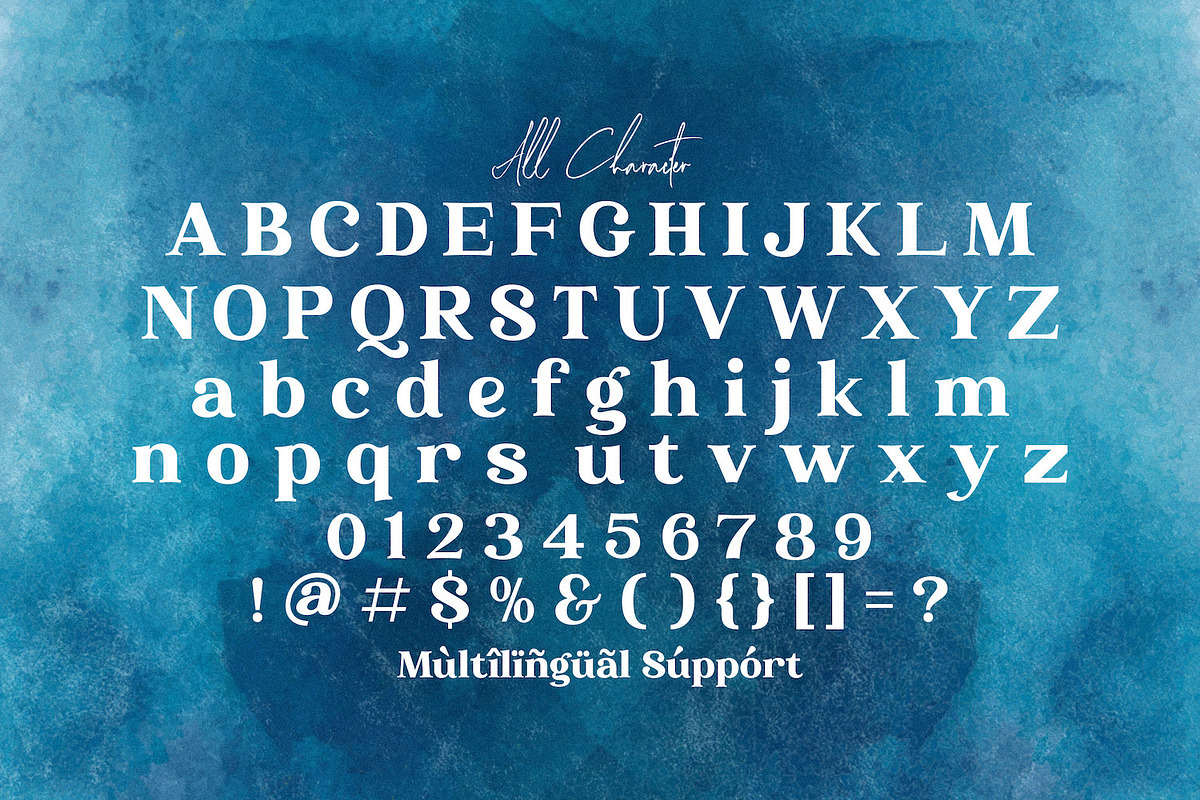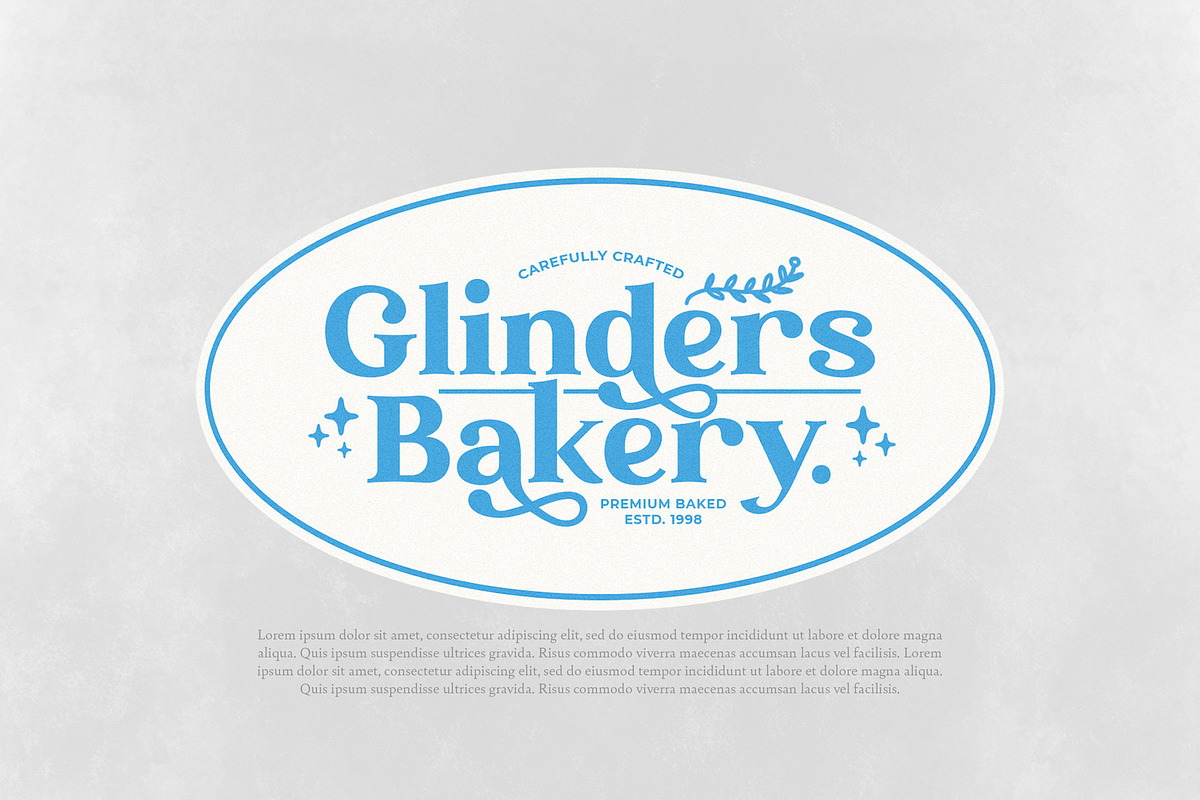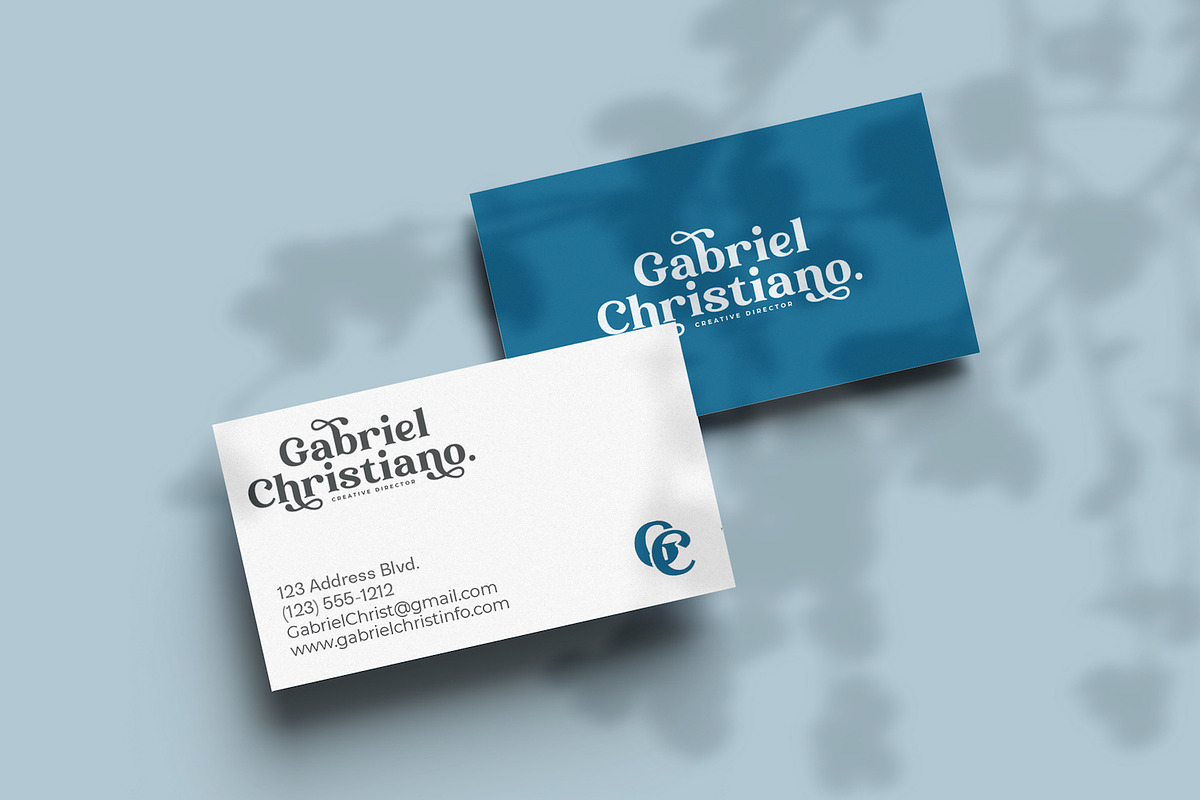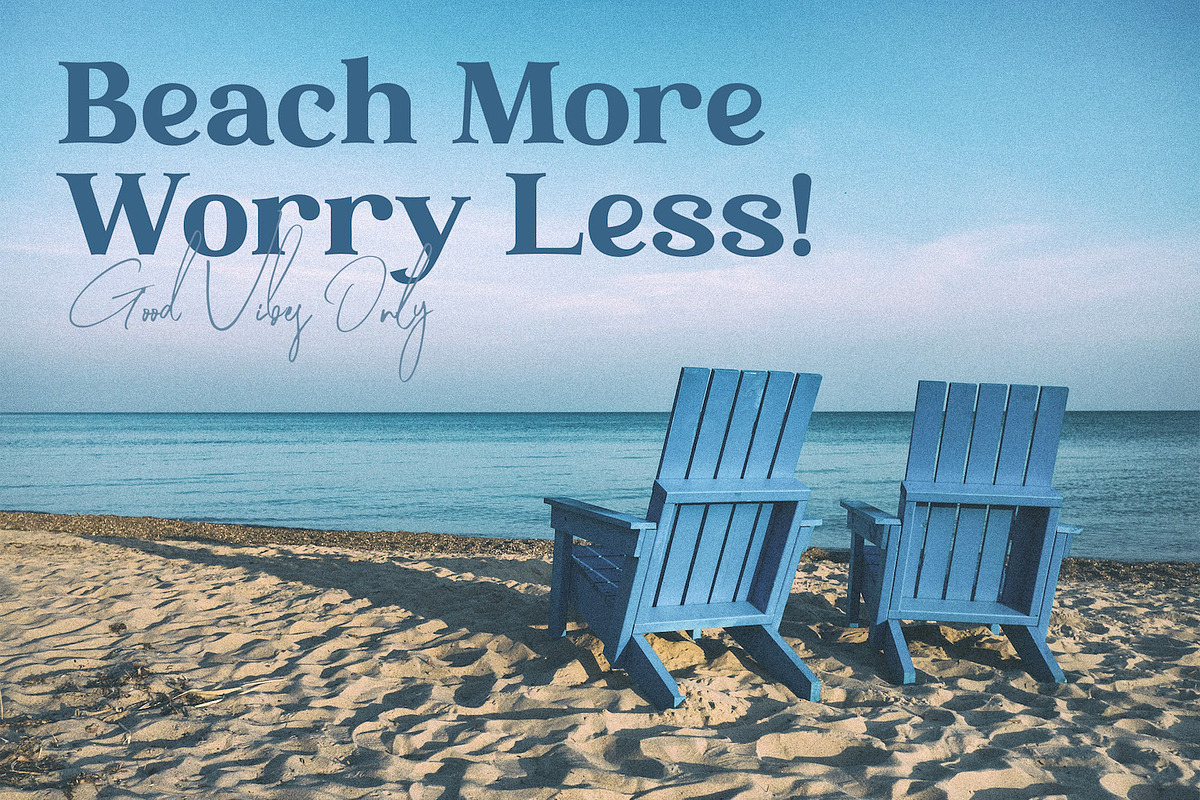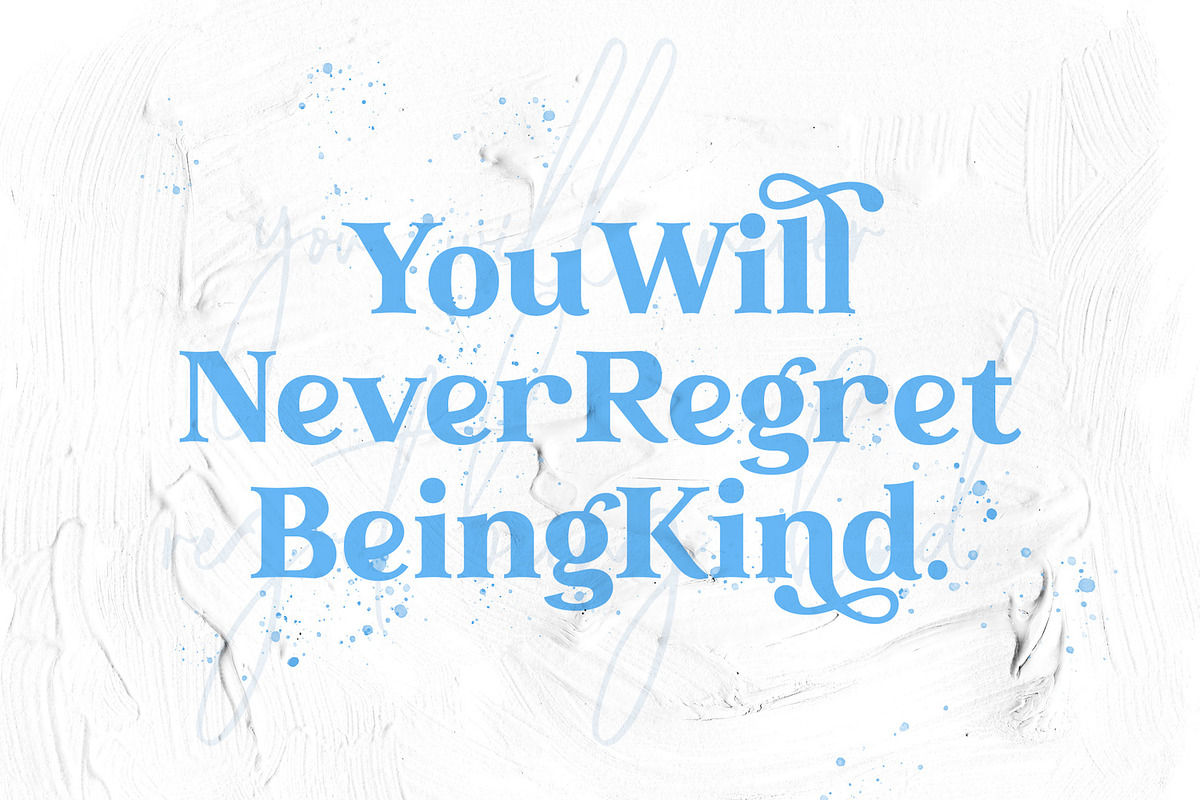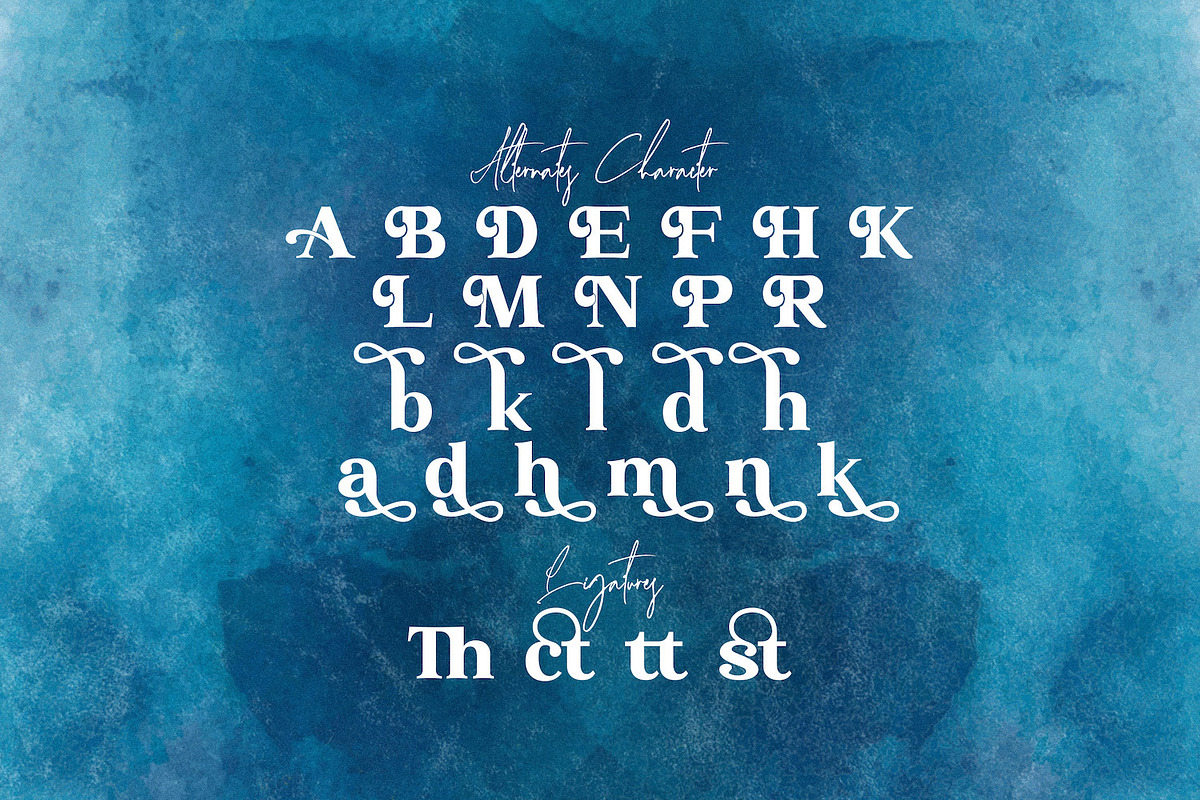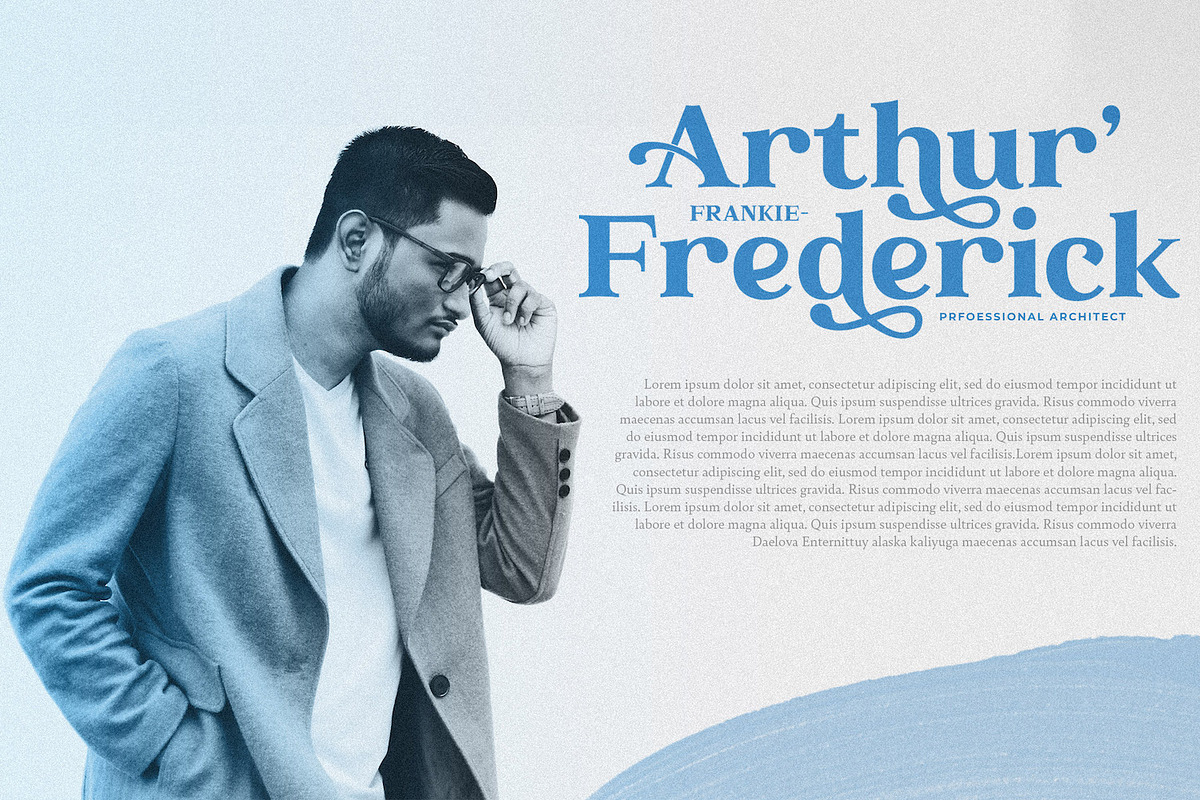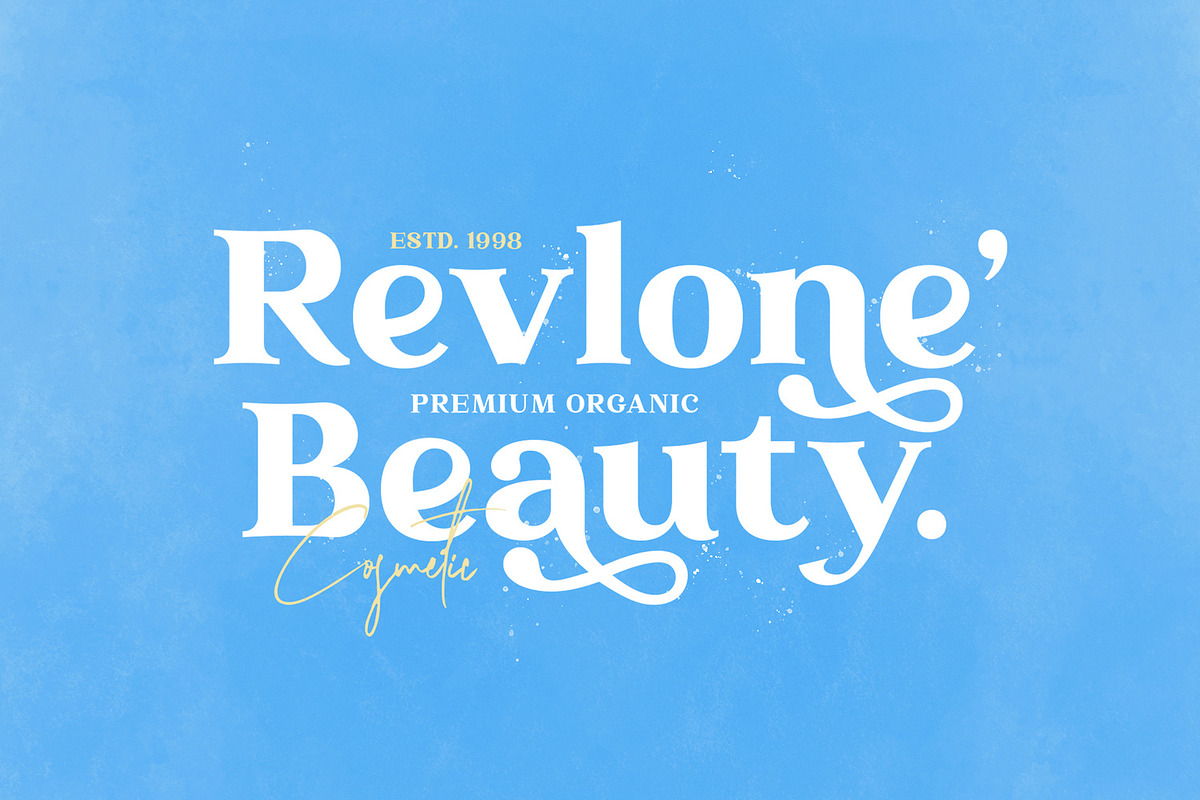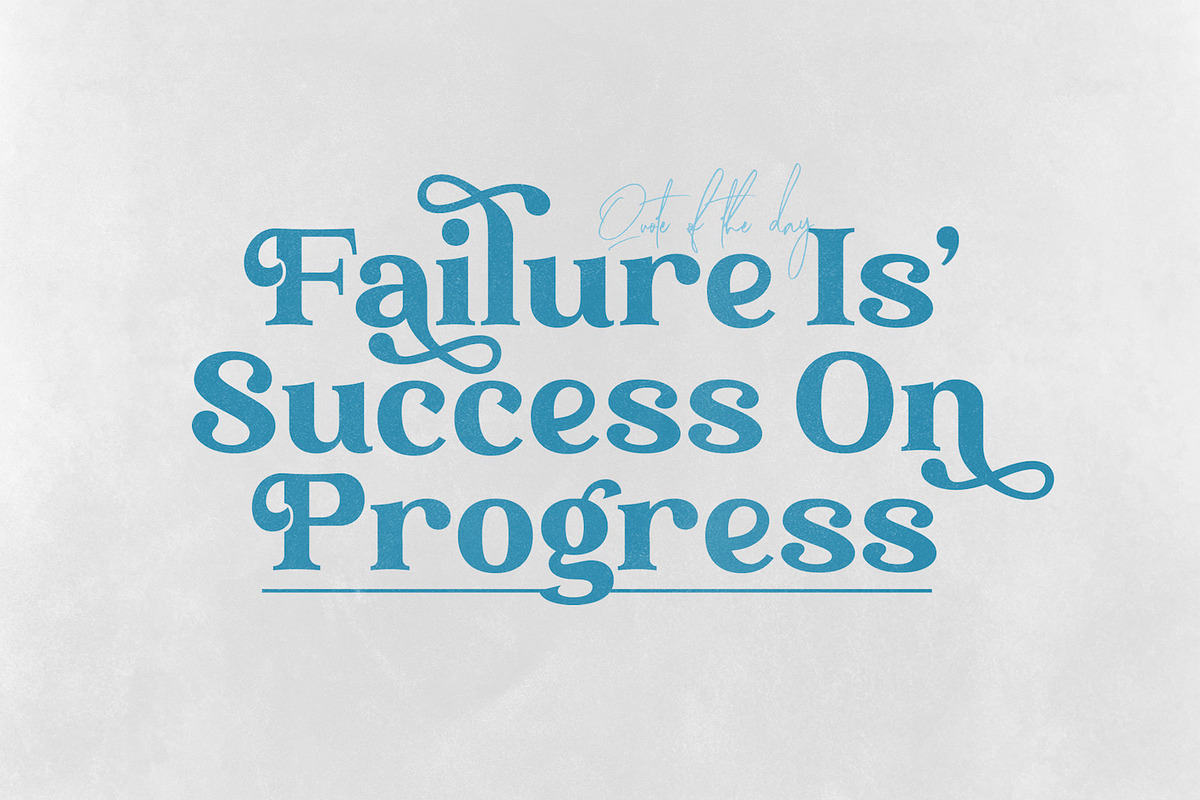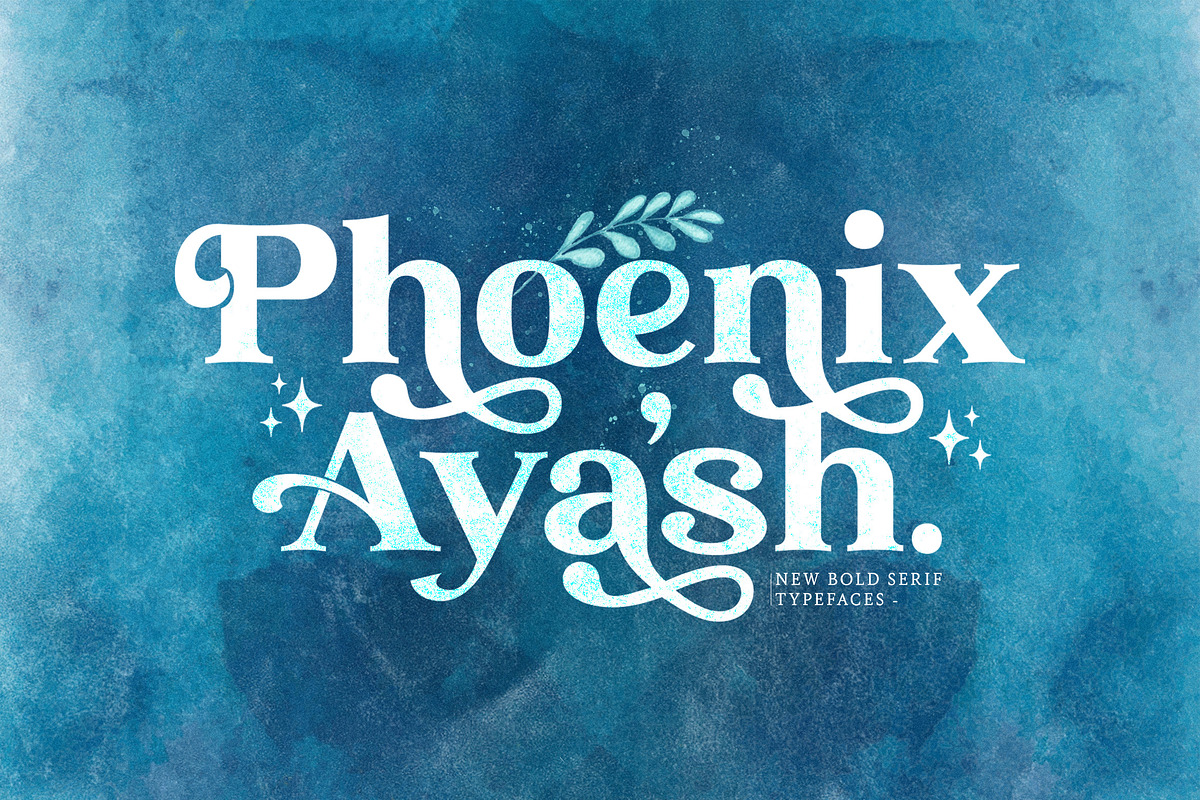
Phoenix Ayash - Bold Serif Font
Introducing Phoenix Ayash - Bold Serif Font
Phoenix Ayash is an authentic and bold serif font. It can easily be matched to an incredibly large set of projects, so add it to your creative ideas and notice how it makes them stand out!